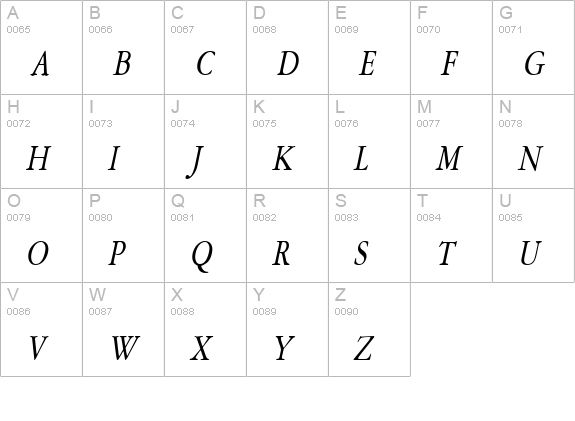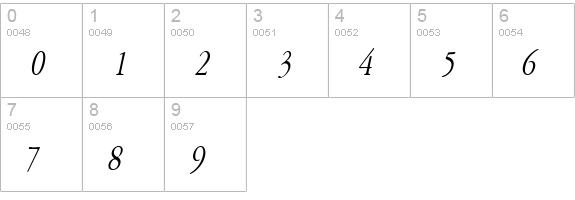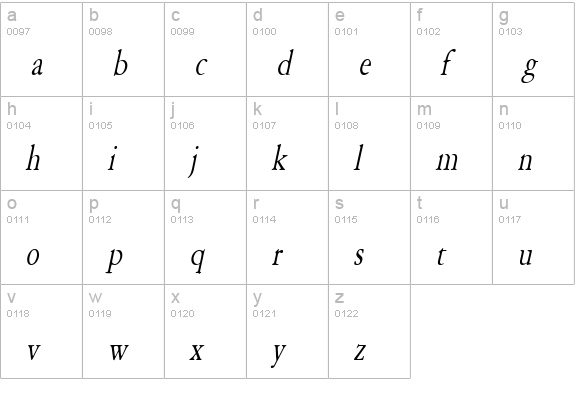
Amery Condensed Italic is a distinctive, condensed-width, italic variant in the Amery typeface family \xE2\x80\x94 well suited to design and typography projects.
Amery Condensed Italic font is a sleek and modern typeface that exudes elegance and sophistication. Its italic style adds a touch of flair and dynamism to any text, making it perfect for projects that require a contemporary and stylish look. The condensed design of the font allows for efficient use of space without compromising readability. Whether you're designing a logo, creating a website, or crafting a poster, Amery Condensed Italic font will elevate your design to the next level. Its versatility makes it suitable for a wide range of applications, from branding to editorial design. Best of all, this font is available for free download at FontsMarket.com. You can easily access and use this high-quality typeface in your projects without any cost. Don't miss out on the opportunity to enhance your designs with the sophistication and style of Amery Condensed Italic font.